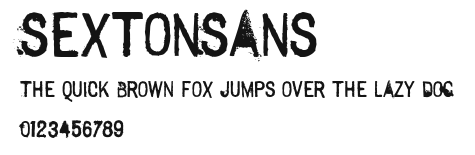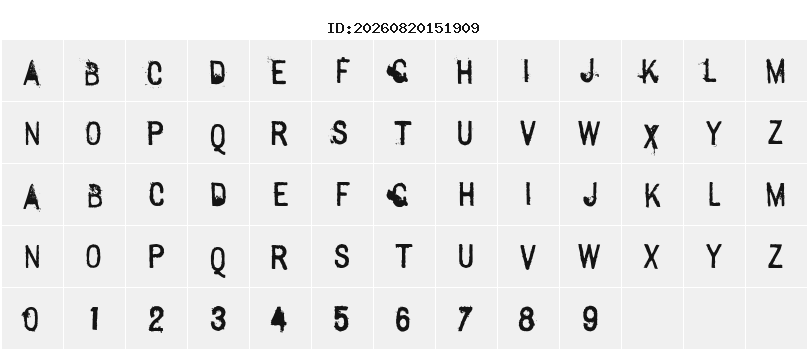
SextonSans Preview
• Font Name: SextonSans
• Full Font Name: SextonSans
About SextonSans.ttf
SextonSans.ttf is a modern, elegant sans-serif font designed for ultimate readability and visual harmony. Perfect for branding, headlines, web design, and print materials.